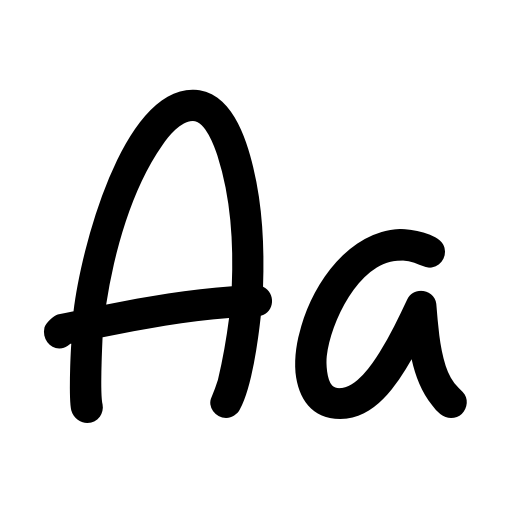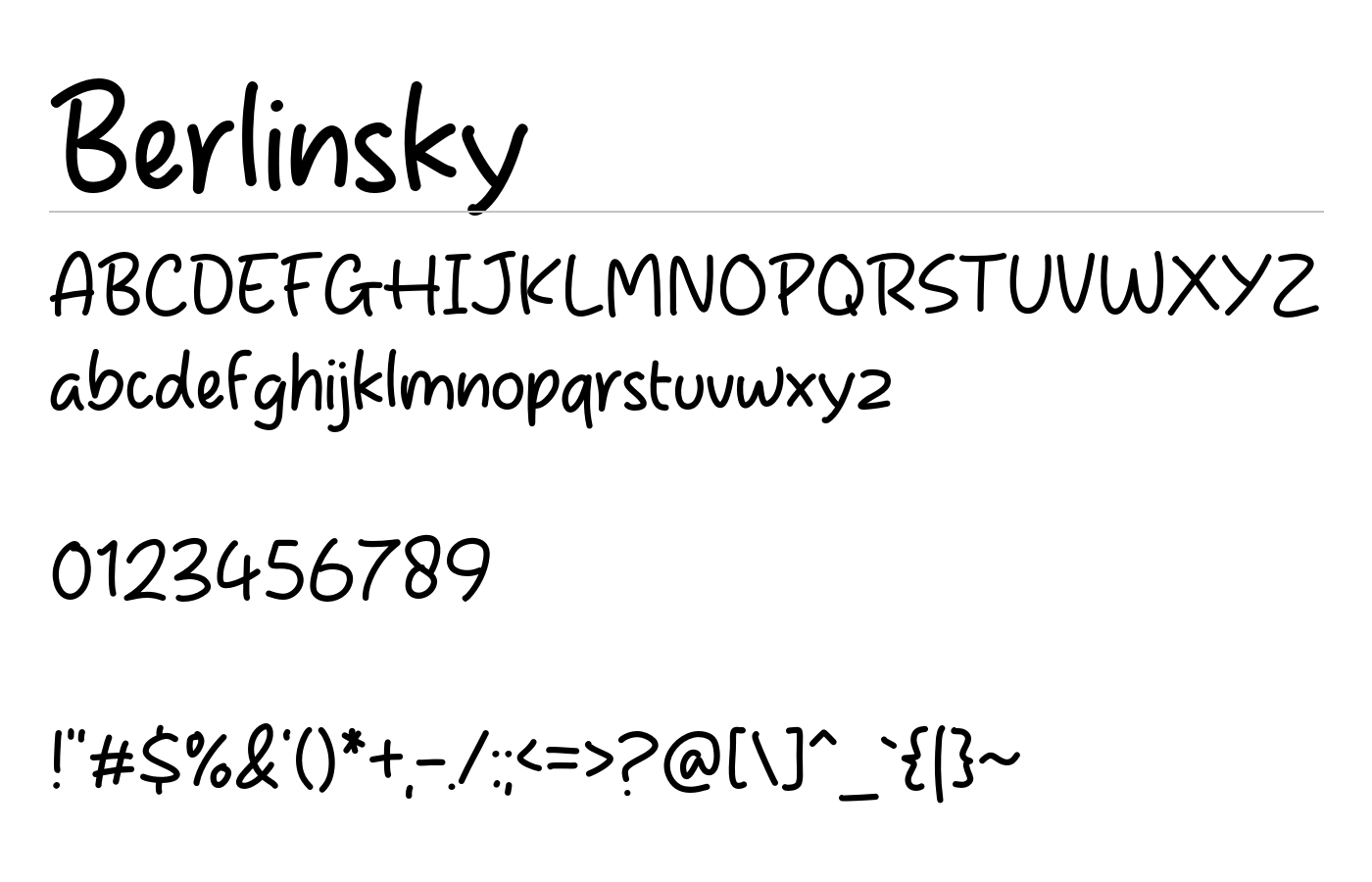
Berlinsky is a playful and casual handwritten sans serif font featuring smooth, rounded strokes with a consistent medium weight and generous x-height, which makes it highly readable and friendly. Its lively letterforms with slight variations evoke a natural, approachable vibe, making it perfect for informal branding, children’s materials, and creative projects that need a personal touch. This font works well in headlines, logos, and packaging where a warm, inviting style is desired.
Berlinsky Font
About Berlinsky Font